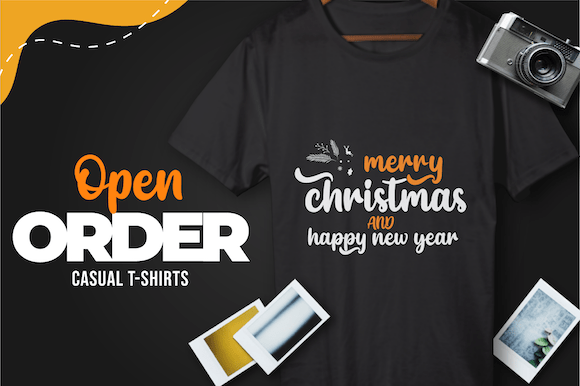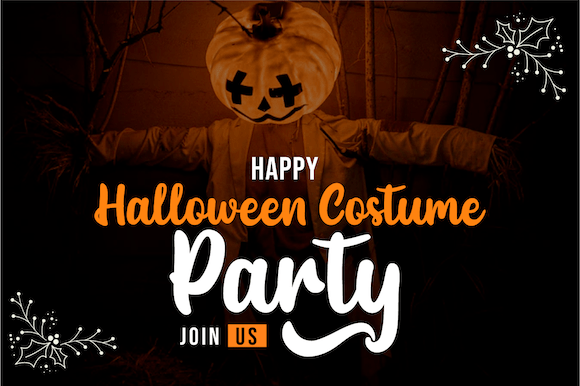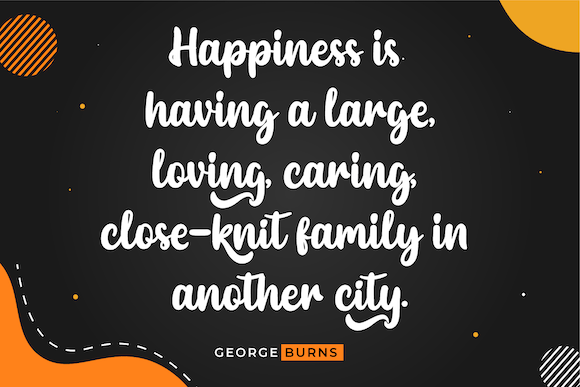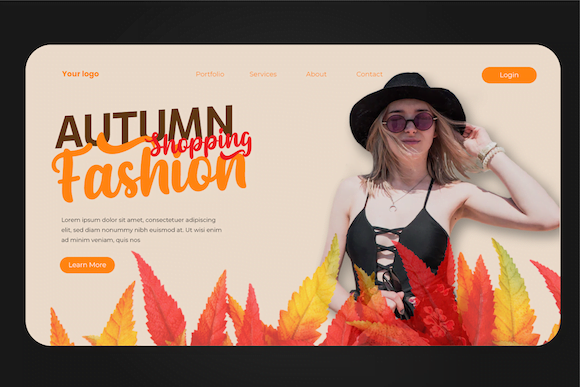
- Settikef – Handwritten Script Font
Add a personal touch to your designs with Settikef, a Handwritten Script Font that exudes warmth and authenticity. Ideal for wedding invitations, personal branding, social media graphics, and lifestyle blogs, Settikef brings a natural flow and elegance to your text. Each character mimics the fluidity of a hand-drawn script, giving your designs a beautifully organic and welcoming feel.
Settikef’s delicate curves and slightly textured strokes make it perfect for projects where a genuine, handcrafted look is essential. Whether you’re designing heartfelt quotes, stylish branding materials, or sophisticated packaging, Settikef provides the charm and grace needed to elevate your work. Its versatility shines across both print and digital media, making it a favorite for creatives looking to add warmth and individuality to their projects.
Let your designs speak with the grace of handwriting through Settikef, the script font that brings style and personality to every word.